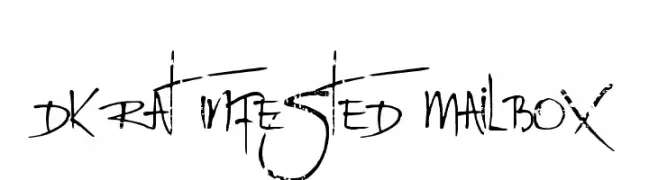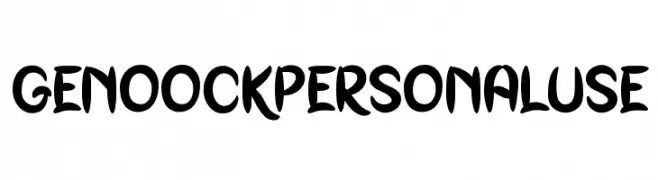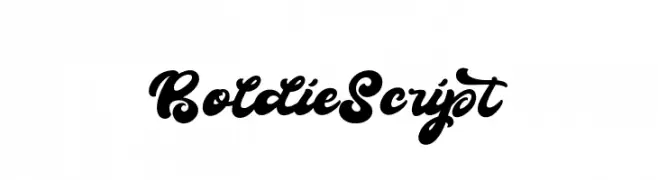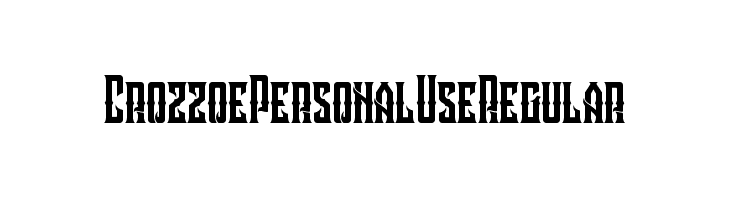
A distressed, graffiti-inspired font with a raw, edgy aesthetic.
A bold, geometric typeface with a modern, industrial style.
A playful, hand-drawn font with rounded edges and a casual, whimsical style.
A futuristic, geometric font with blocky, angular letterforms.
A geometric, multi-line font with a futuristic and digital aesthetic.
A playful and whimsical script font with fluid, interconnected letterforms.
A bold, brush-style font with a textured, artistic appearance.
A bold, gothic-inspired font with intricate blackletter details.
A bold, playful handwritten font with rounded characters and a dynamic slant.
A bold, expressive script font with elegant, flowing strokes.